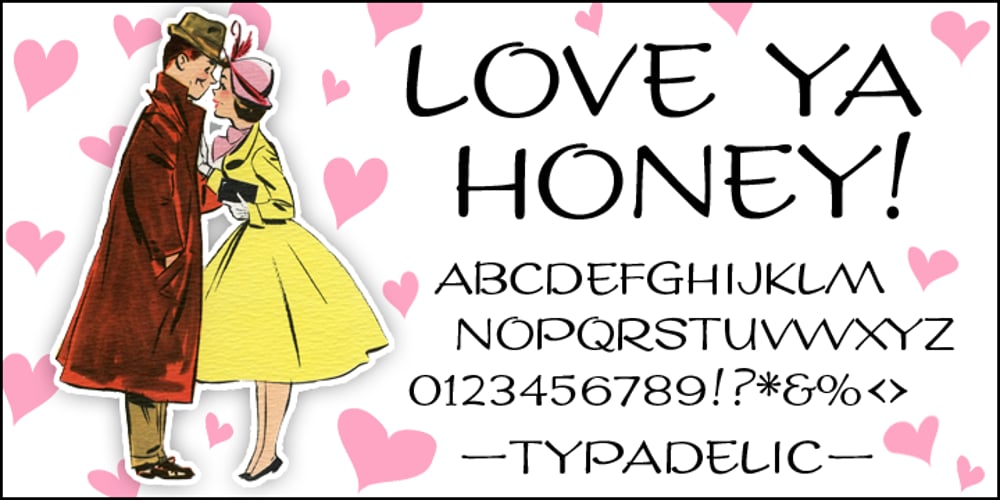
LoveYaHoney Font Family was designed by Ronna Penner and published by Typadelic. LoveYaHoney contains 1 styles and family package options. Aw, aren’t they sweet? This lettering is based on a 1950s note a husband wrote to his wife shortly after they were married. His beautifully controlled and strong handwriting knows no lowercase characters; he gets his point across in uppercase only. In today’s world of email and internet writings, we know that uppercase means shouting and is considered quite rude, but he didn’t know that when he wrote this letter to his lovely wife! Love Ya Honey is very legible and looks beautiful when used for headlines, titling or even long expanses of body copy. Perfect for scrapbooking too!